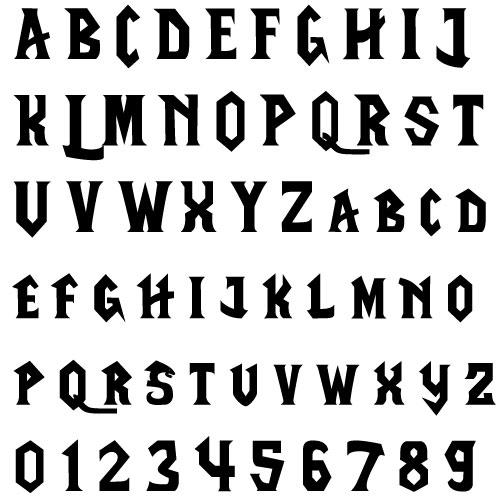
Fireside Threads is happy to present Lifecraft machine embroidery font which has Bold Western machine embroidery font with sharp, angular edges in dark green, ideal for rustic decor on pillows and wall hangings. Available in PES, DST, and 9 other formats. included. If you would like to view more embroidery fonts and alphabets please search our embroidery fonts page.